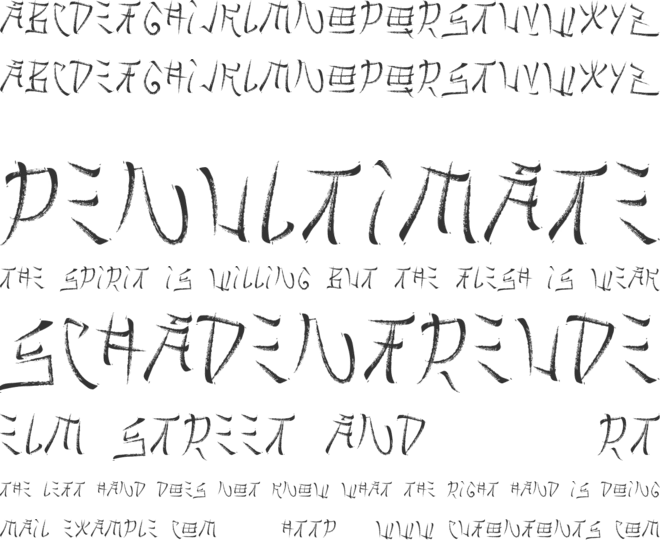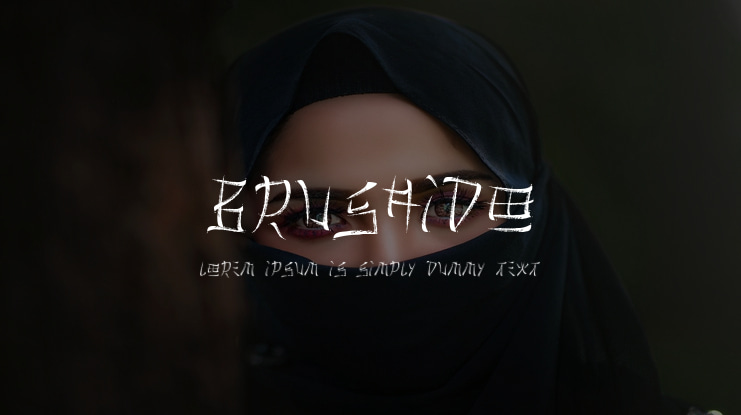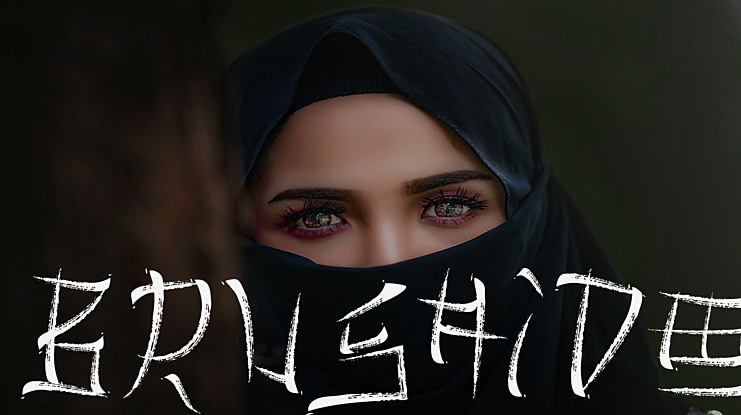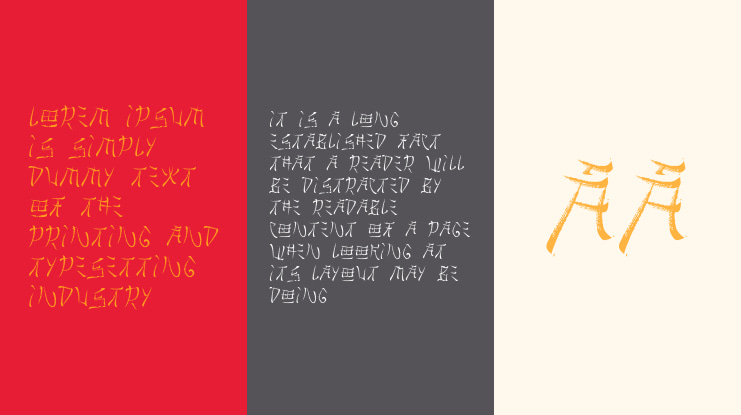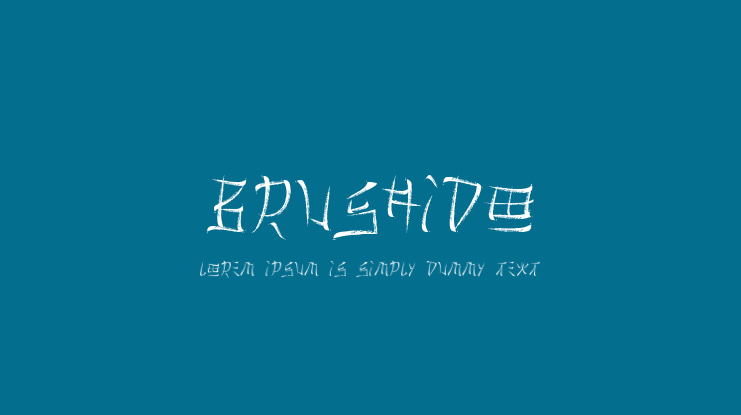
Brushido Font
BRUSHIDO is an experiment on making a font look like japanese lettering with brush. It
contains only letters A-Z.
modifications on letters for better readability.